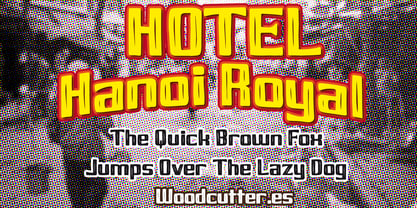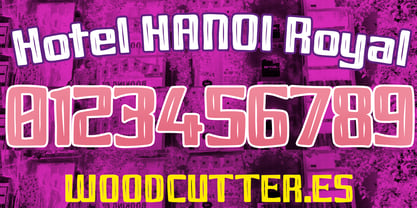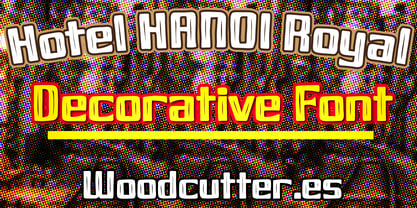
Hotel Hanoi Royal
by Woodcutter
The Hotel Hanoi Royal Font Family was designed by Jordi Manero and published by Woodcutter. Hotel Hanoi Royal contains 1 styles. More about this family
“Hotel Hanoi Royal” is an uppercase and lowercase typeface that stands out for its elegant and sophisticated design, inspired by classic luxury hotels and refined Oriental aesthetics. Its letters are decorated with fine lines and delicate ornaments that convey a timeless and classic style. It includes carefully crafted accents that maintain the harmony of the overall design, making it ideal for branding projects, invitations, menus, or premium-themed posters. Its blend of tradition and elegance makes it a versatile font that evokes luxury, exclusivity, and style.
Designers: Jordi Manero
Foundry: Woodcutter